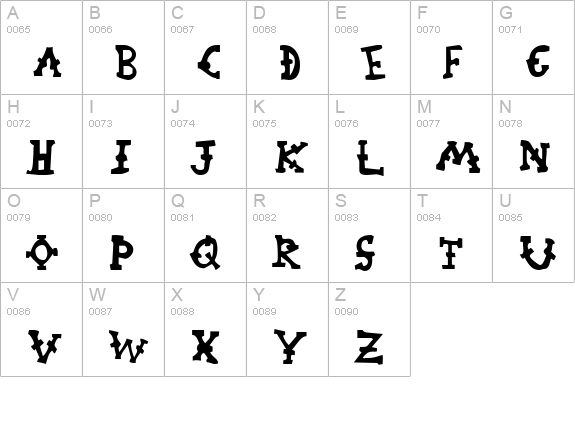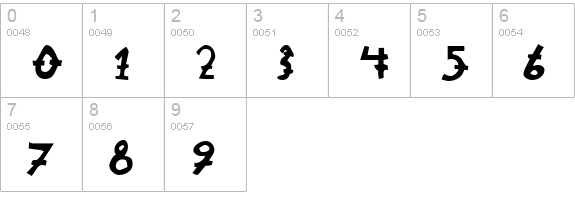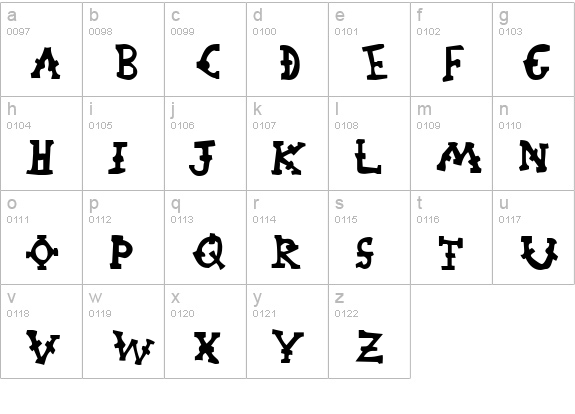
Orphanage Riot 1 Font Details
Orphanage Riot 1 font is a bold and dynamic typeface that exudes a sense of rebelliousness and creativity. Its unique design features sharp edges and intricate details that make it stand out in any project. This font is perfect for adding a touch of edginess to posters, album covers, or branding materials. What sets Orphanage Riot 1 font apart is its versatility - it can be used for both playful and serious projects, making it a must-have for any designer looking to make a statement. Whether you're creating a punk-inspired flyer or a modern logo, this font will help you achieve the perfect look. Best of all, Orphanage Riot 1 font is available for free download at FontsMarket.com. So go ahead and unleash your creativity with this eye-catching typeface that is sure to make your designs pop!